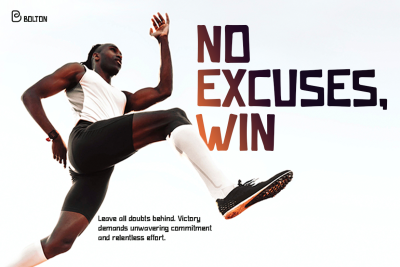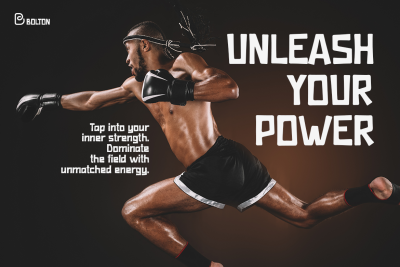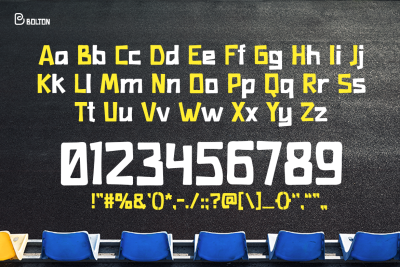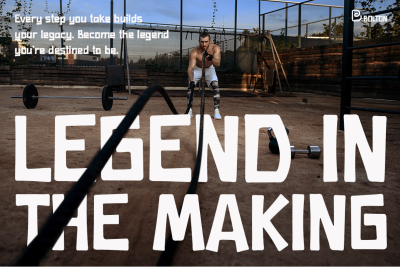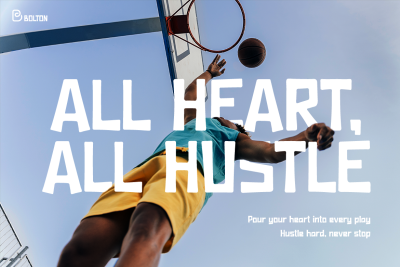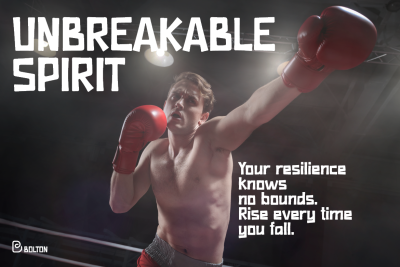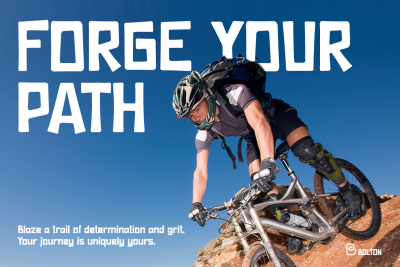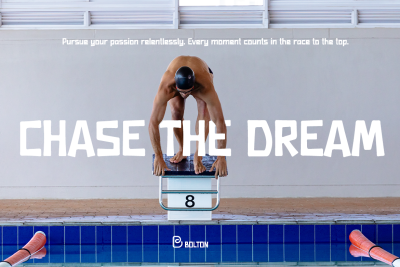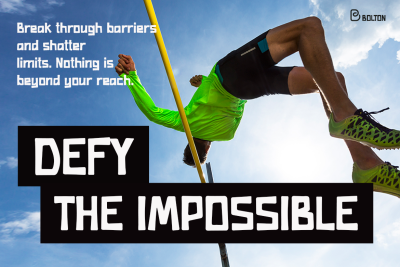
Racing Font Bolton is a bold, high-impact typeface designed to capture the essence of speed and strength. With its uniquely stretched and dynamic letterforms, this font embodies movement, power, and resilience. The angular edges and slightly condensed proportions make it perfect for projects that demand an energetic, eye-catching presence. Inspired by the fast-paced world of racing and sports branding, Bolton delivers a modern yet aggressive feel, making any design look confident and unstoppable.
The font’s distinctive character stems from its combination of sharp, geometric strokes and slightly exaggerated proportions. This creates an intense visual rhythm, making words appear as if they are in motion even when standing still. Whether used in headlines, logos, or promotional materials, Bolton ensures clarity and dominance. Its strong presence makes it especially useful for brands and events that want to stand out with an unmistakable voice.
Moreover, Bolton is not only about aestheticsโit is also highly functional. Designed for both print and digital applications, it maintains its striking appearance across various media. Whether on billboards, sports jerseys, gaming interfaces, or racing posters, Racing Font Bolton guarantees maximum impact. The boldness of its design allows for excellent legibility, even from a distance, making it a reliable choice for projects that need to communicate power and speed effectively.
Racing Font Bolton Who is it for?
Bolton is perfect for designers, businesses, and content creators who need a racing-inspired typeface with a bold, commanding presence. It is particularly suited for:
- Sports and Fitness Brands: From athletic apparel to gym branding, Bolton conveys strength, speed, and endurance. It works well on sportswear logos, merchandise, and marketing campaigns.
- Motorsports and Automotive Industry: Ideal for racing teams, auto repair shops, and performance car brands. It enhances vehicle wraps, event promotions, and racing-related merchandise.
- Gaming and eSports: Game developers and eSports teams can use Bolton to add an edgy and modern touch to their branding, logos, and promotional materials.
- Tech and Innovation Startups: Companies in the technology sector, especially those focused on AI, robotics, or futuristic products, can leverage Boltonโs sharp, high-energy aesthetics to create a strong brand identity.
- Event Promotion and Advertising: Whether for music festivals, marathons, or extreme sports competitions, Boltonโs bold letterforms ensure high visibility and engagement.
- YouTubers and Content Creators: Those in fitness, automotive, or gaming niches can use Bolton for eye-catching thumbnails, banners, and social media graphics, making their content visually compelling.
Racing Font Bolton is the ultimate choice for those looking to add speed, power, and boldness to their designs. With its aggressive yet versatile design, it transforms any project into a statement of strength and motion. If you need a font that screams confidence and movement, Bolton is your perfect match.